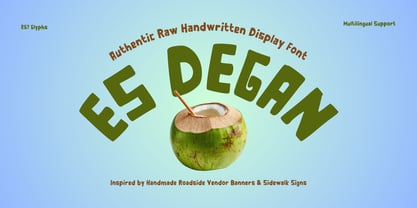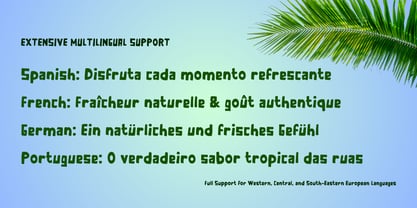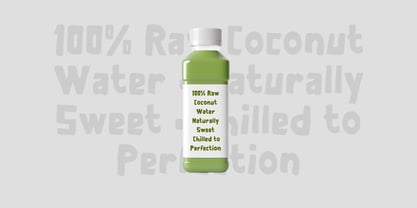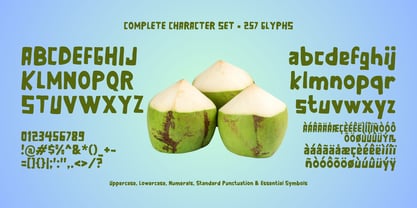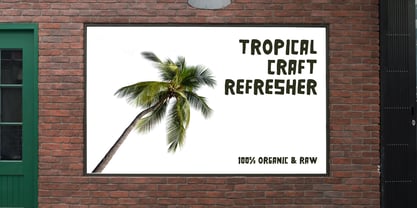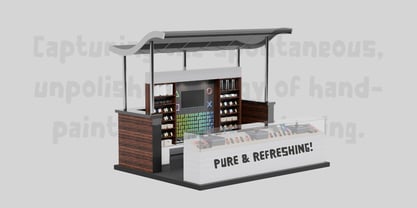
Es Degan
by Kalam
The Es Degan Font Family was designed by Wahyu Eka Prasetya, Moch Zamroni and published by Kalam. Es Degan contains 2 styles and family package options. More about this family
ES Degan is an authentic, raw handwritten display font inspired by the spontaneous, hand-painted street signs of local coconut water vendors (es kelapa muda). It captures that vibrant, unpolished sidewalk energy—translating quick, purposeful brushstrokes and rustic DIY charm into a versatile typographic tool.
With its natural imperfections, textured contours, and laid-back cadence, ES Degan is built to give packaging, casual branding, restaurant menus, apparel designs, posters, and social media graphics an unmistakable, grounded human touch.